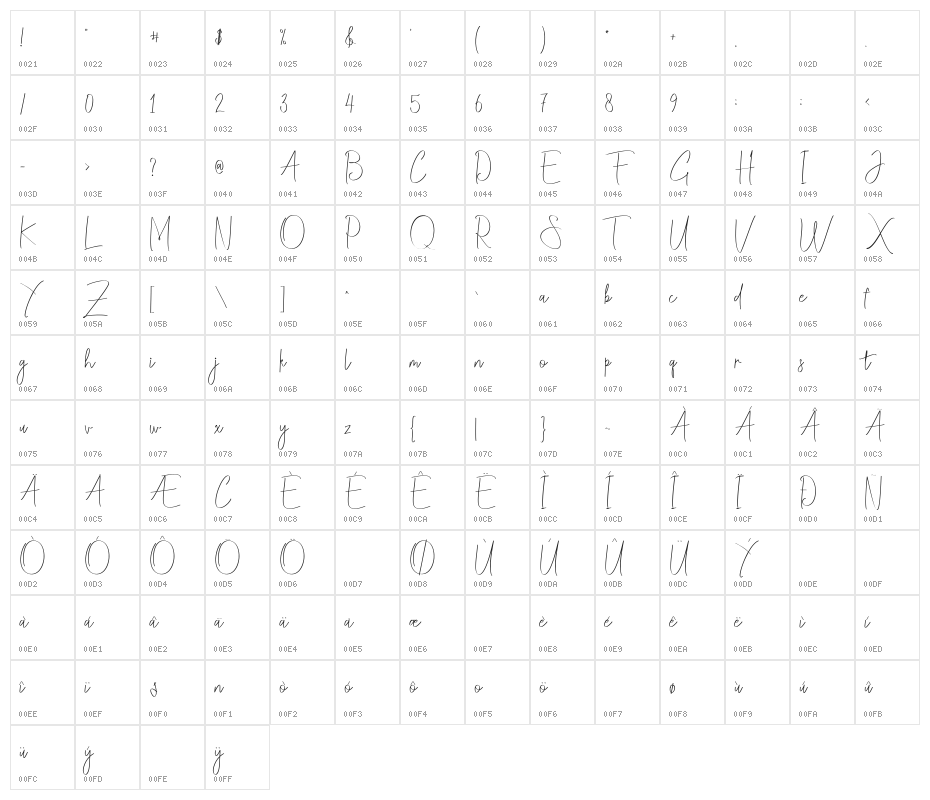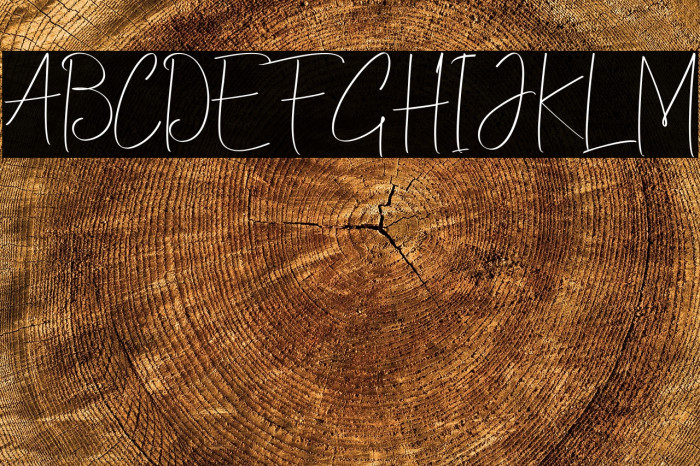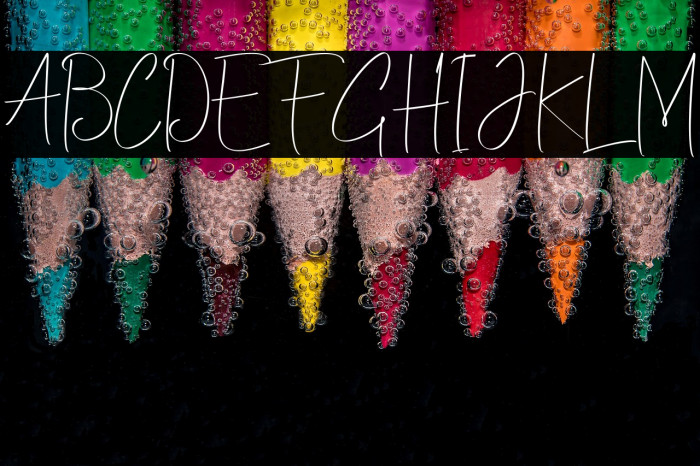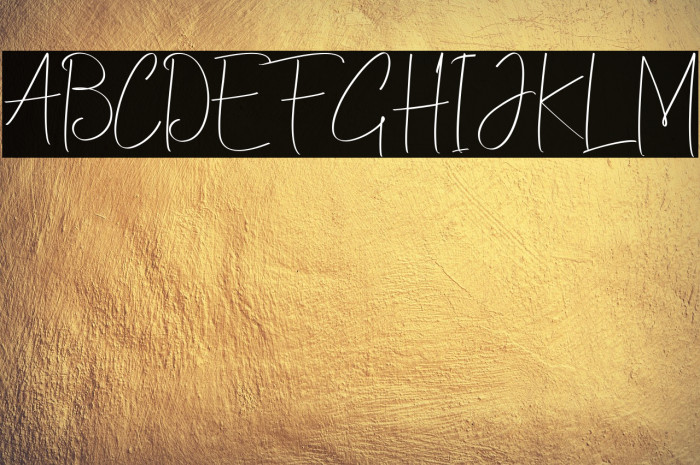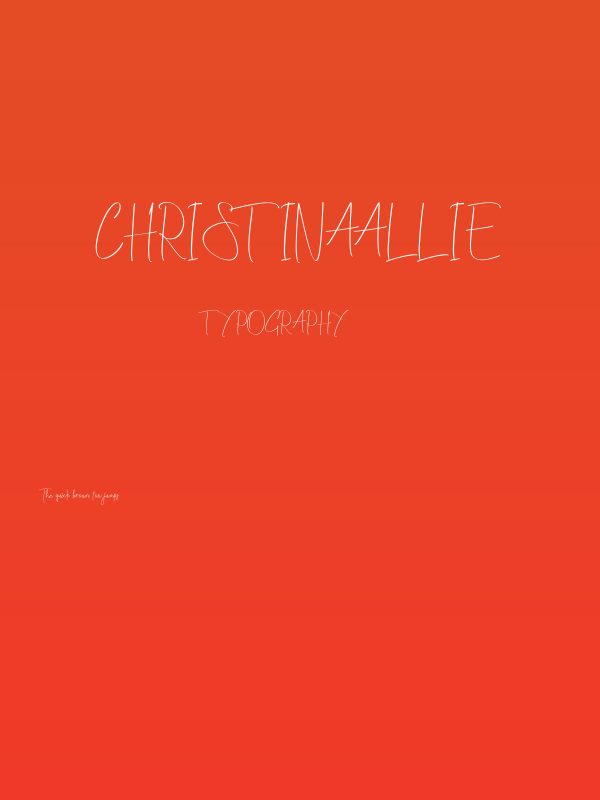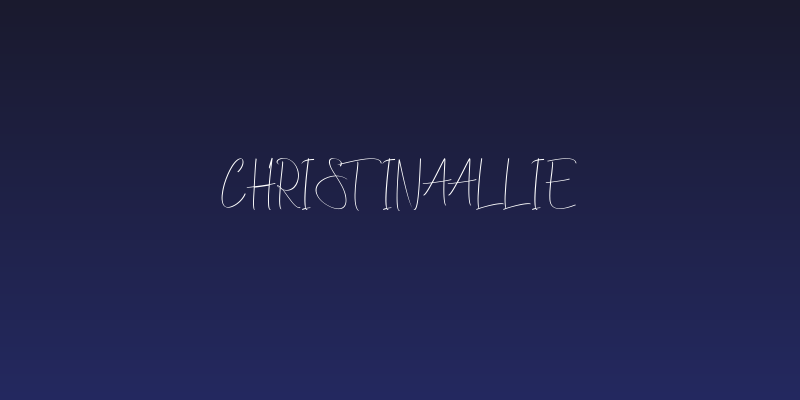
ChristinaAllie Font
ChristinaAllie Description
This font features a delicate and flowing script style, characterized by its elegant and elongated letterforms. The strokes are thin and graceful, giving it a sophisticated and airy appearance. The uppercase letters are tall and slightly slanted, while the lowercase letters maintain a consistent fluidity with gentle curves and loops. The numerals are clear and maintain the same thin stroke, ensuring readability. Special characters are seamlessly integrated, maintaining the font's overall aesthetic. This font exudes a sense of elegance and refinement, making it suitable for formal and decorative purposes.
| Use Case | Headlines, Invitations, Branding |
| Proposed Projects | Ideal for wedding invitations, elegant branding, personal stationery, and decorative headings. |